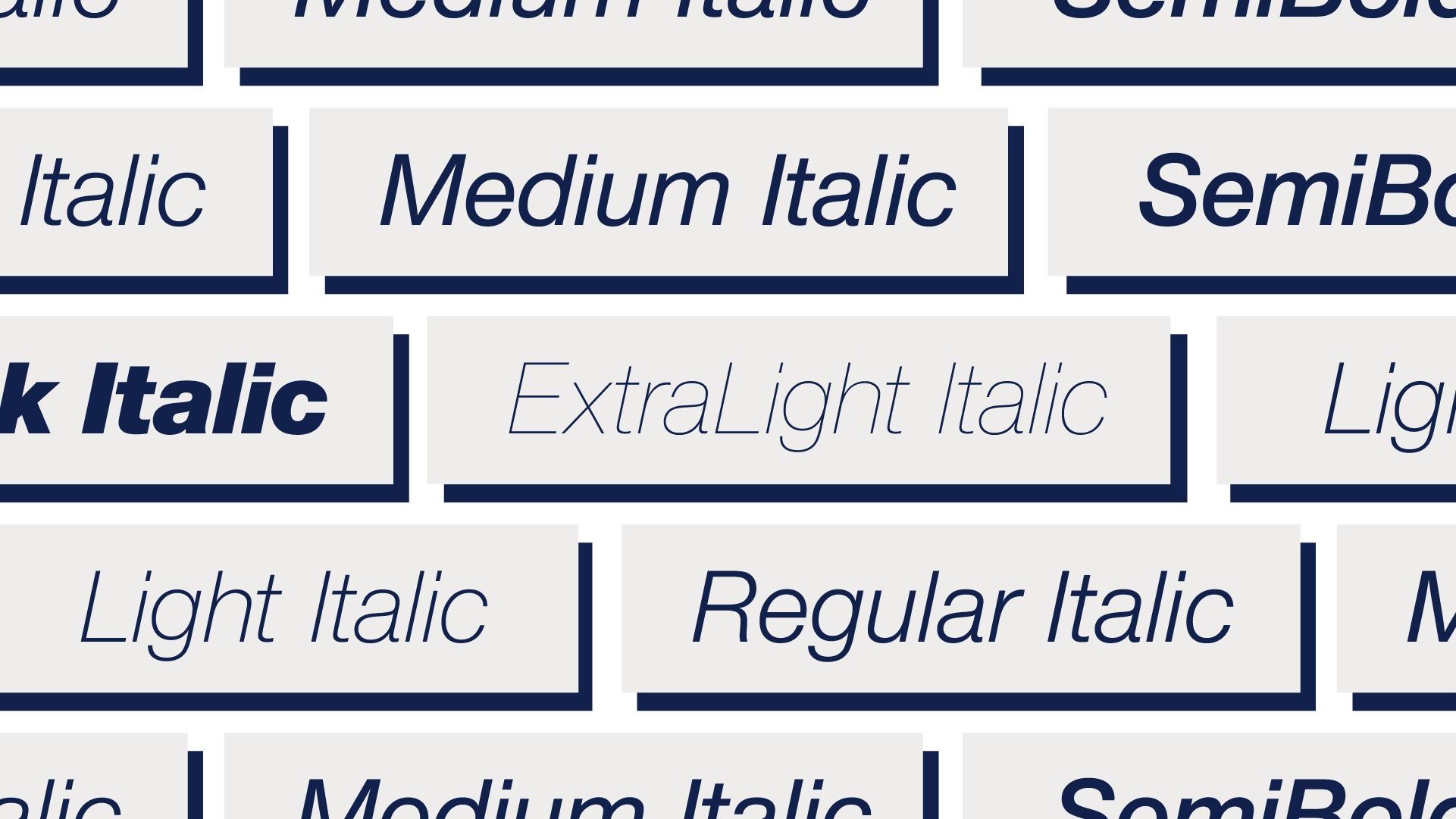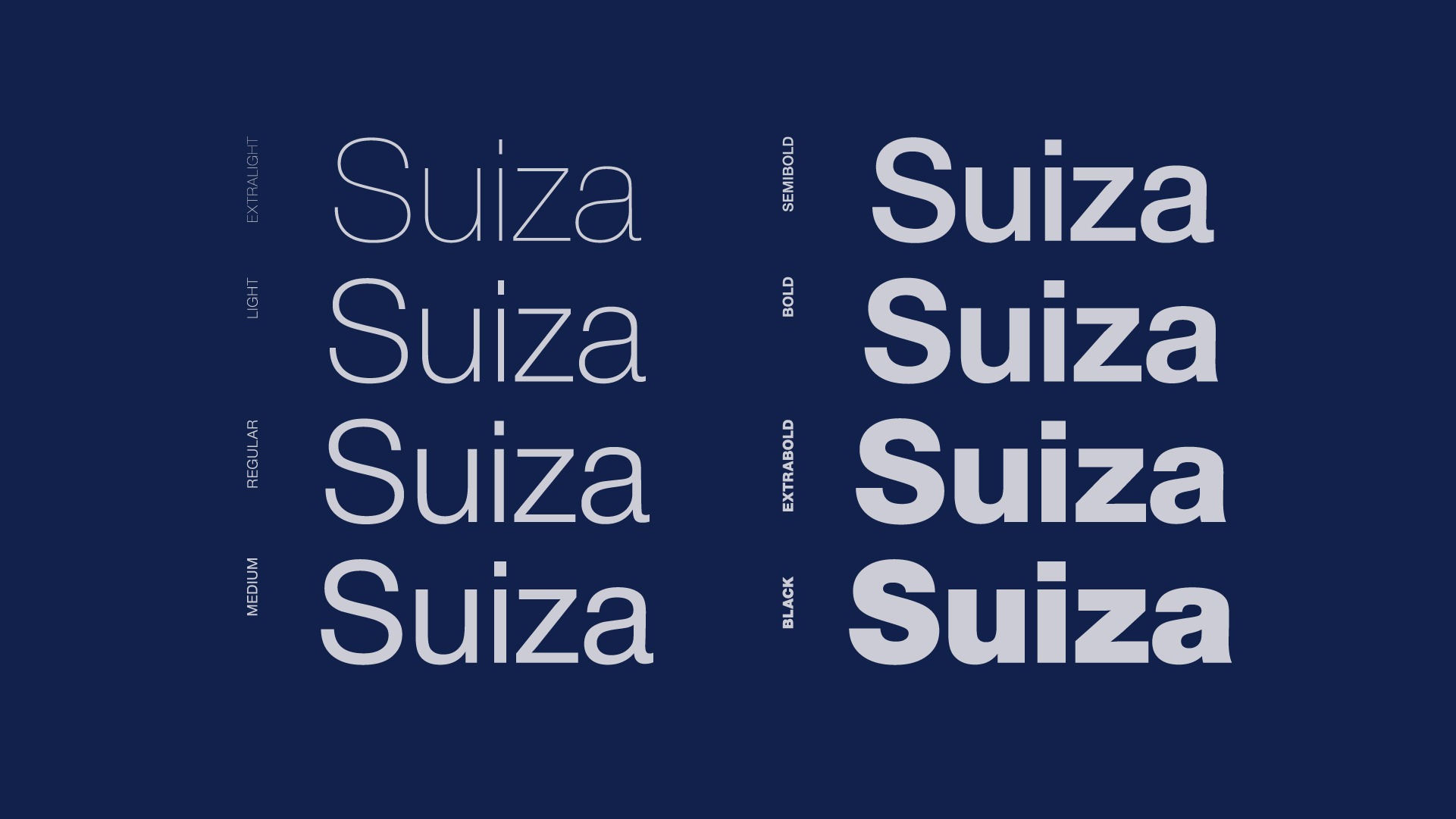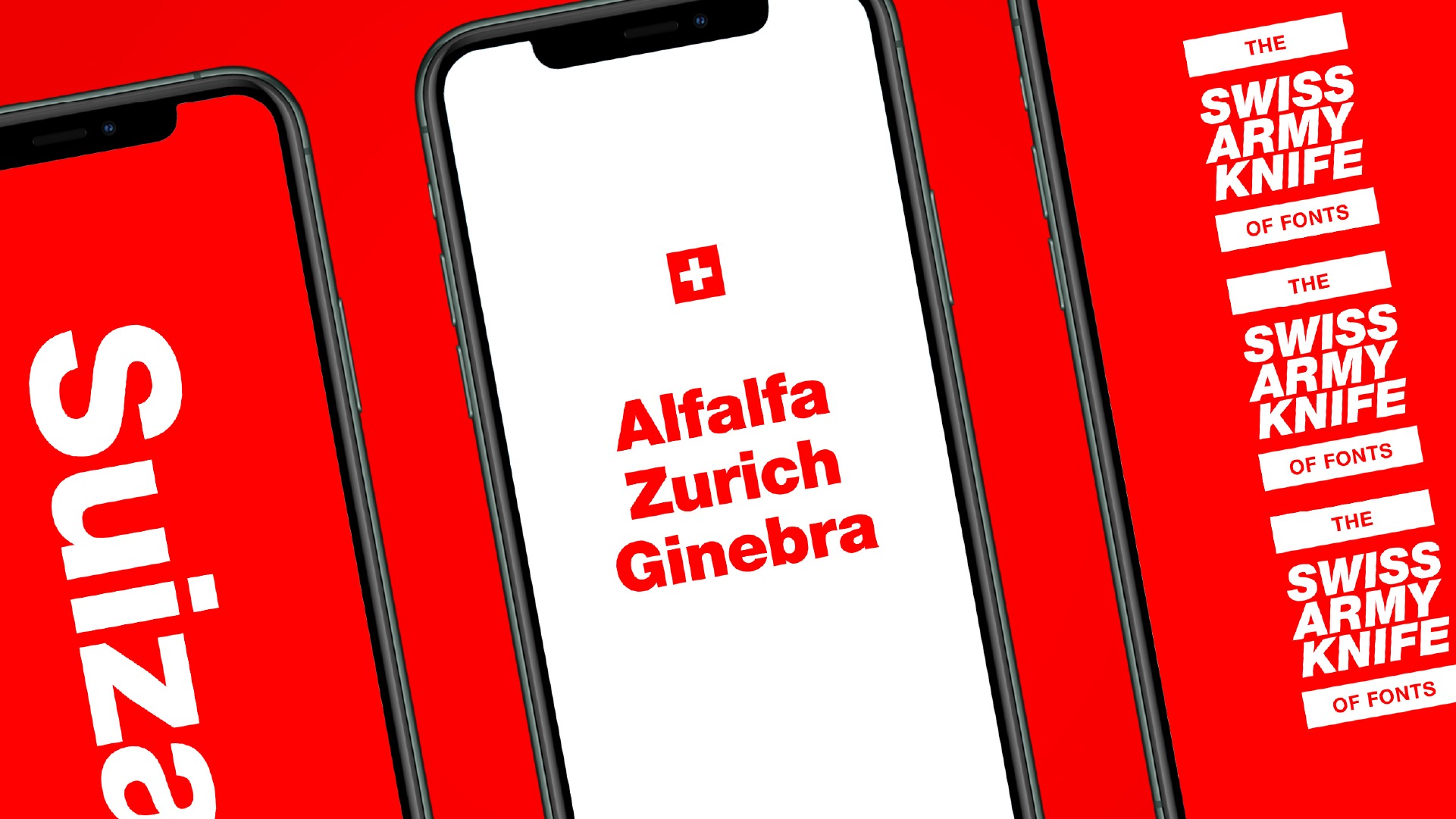
Suiza Sans Serif Font
This is a complete grotesk sans serif typeface devoted to versatility and beauty. Suiza also comes with multiple languages, making it easy to use for any country and language use. Suiza is also equipped with the latest professional characteristics that can present an elegant and attractive identity for your company or project for business purposes.
Suiza is suitable for branding projects and various design purposes such as business cards, name tags, advertisements, posters, invitations, branding, logos, magazines, merchandise, presentations, etc.